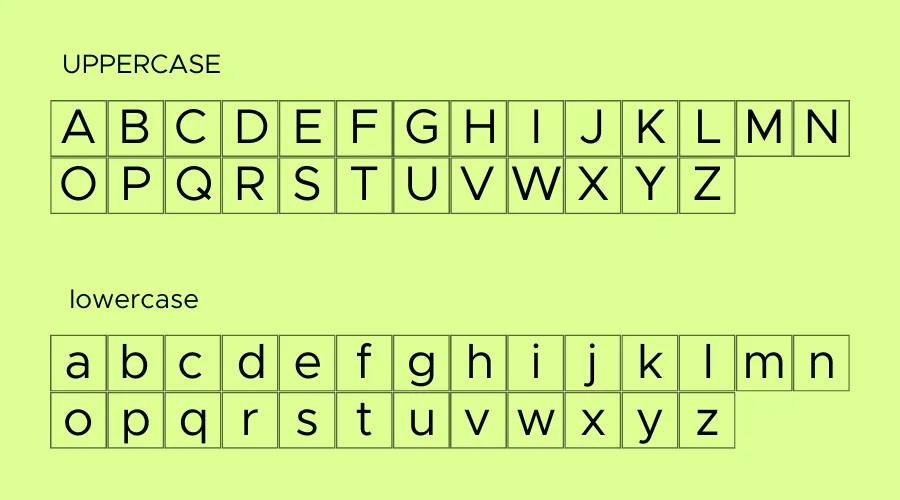
About Metropolis Icg Font
Metropolis Icg Font is designed by Image Club and it is the display typeface. It's an amazing font, it's also well-known for creating headlines for unique projects. All its characters are unique as well as beautiful. The lower-case characters have stunning look.
This typeface comes in a variety of styles. It includes capital and lowercase letters, numbers, punctuation, symbols, commas, and a few unique alphabetic characters. The free version is accessible on our webpage.